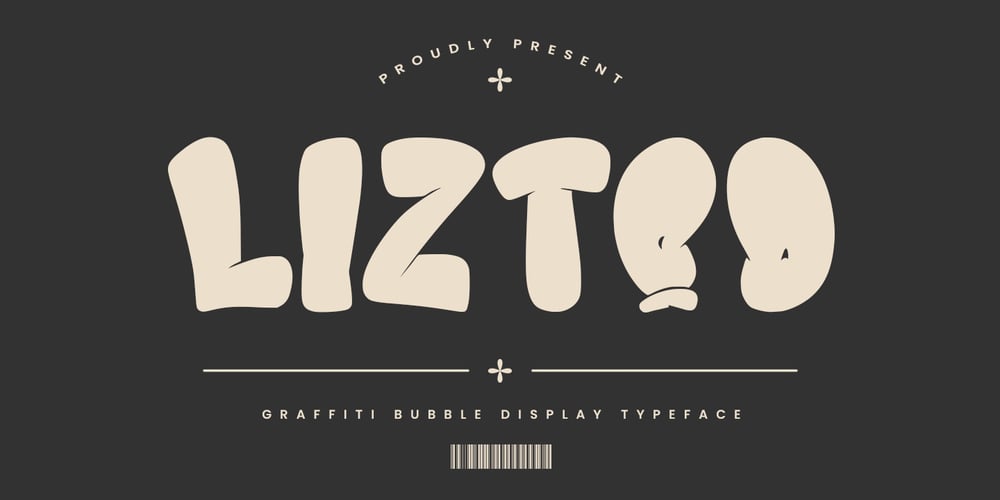
MC Liztoo Font Family was designed by Gilang Maulana and published by Maulana Creative. MC Liztoo contains 1 styles and family package options. Liztoo graffiti display font. With bold stroke, fun character with alternates. To give you an extra creative work. Liztoo graffiti display font support multilingual language. This font is good for logo design, Social media, Movie Titles, Books Titles, a short text even a long text letter and good for your secondary text font with script or serif. Make a stunning work with Liztoo graffiti display font.Cheers,Maulana Creative